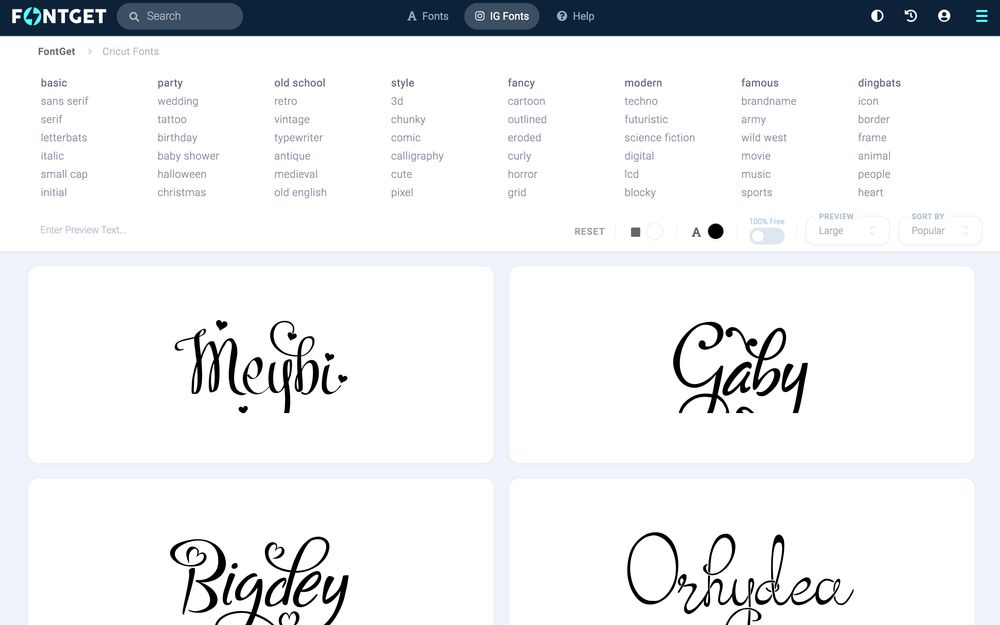
Free Svg Script Fonts For Cricut Free fonts for cricut · lucy said ok by billy argel · hugh is life by billy argel · sunny spells by niskala huruf · millenia by billy argel. Modern, elegant, handwritten, decorative & cute . This cute font is a great choice when it comes to adding new cricut design space fonts. Our top free font picks · 1.
Best free script fonts for cricut · photoshoot · hello valentica · salty ocean · mango salsa · shorelines · i love glitter · bromello · mangosteen. Free calligraphy cursive script fonts for cricut & silhouette crafts like vinyl signs, home decor & more! Free svg files for commercial use and free fonts for cricut and silhouette (and more) too!
This cute font is a great choice when it comes to adding new cricut design space fonts. Free svg files for commercial use and free fonts for cricut and silhouette (and more) too! It's fun, friendly, and has a lot of personality.
It's fun, friendly, and has a lot of personality. Free calligraphy cursive script fonts for cricut & silhouette crafts like vinyl signs, home decor & more! This cute font is a great choice when it comes to adding new cricut design space fonts.
Generally, thick script fonts or fun bold prints are best for focus words. For more help with font design download my free printable font guide . Free fonts for cricut · lucy said ok by billy argel · hugh is life by billy argel · sunny spells by niskala huruf · millenia by billy argel.
Modern, elegant, handwritten, decorative & cute . Wedding invitation fonts, wedding fonts, cricut wedding, wedding script. Our top free font picks · 1.